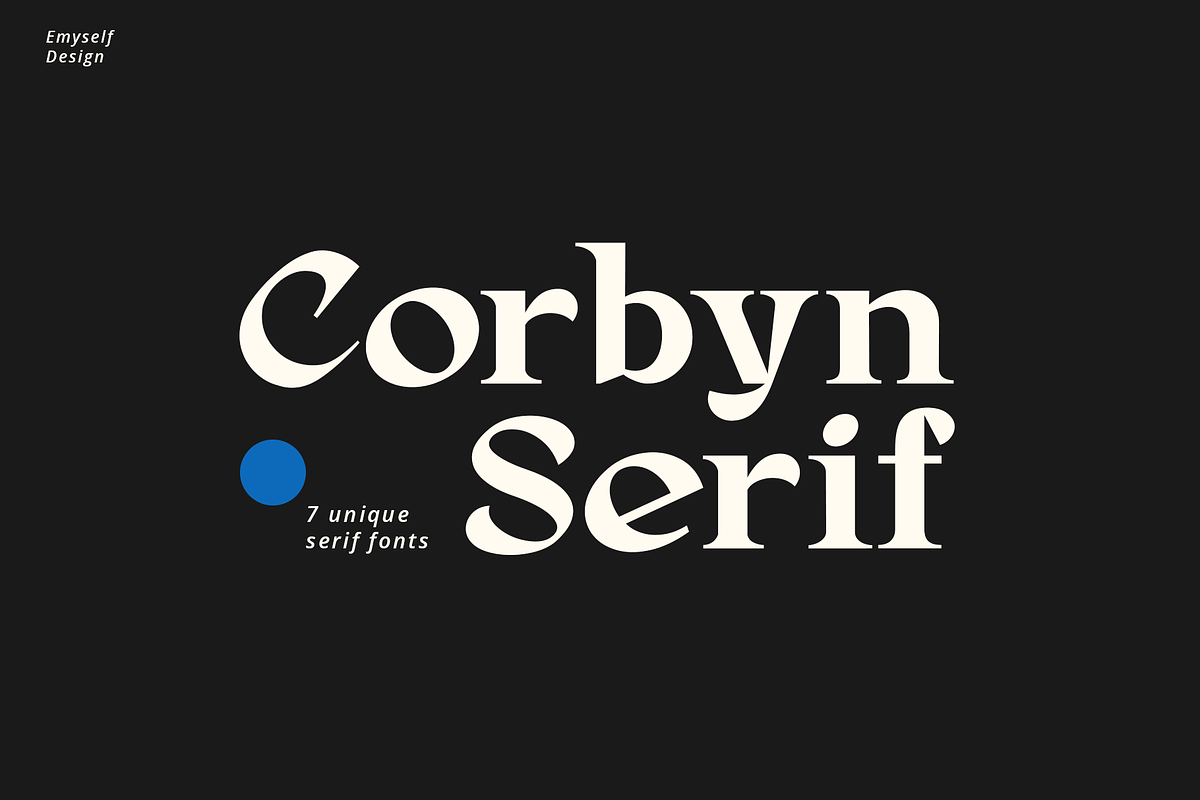
Corbyn Serif Font Free Download is a refined and professional typeface that blends traditional serif structure with a modern aesthetic. With its sharp edges, balanced proportions, and elegant curves, Corbyn is perfect for editorial layouts, corporate branding, book covers, websites, and sophisticated packaging.
Its timeless design ensures excellent readability while adding a touch of authority and elegance to your typography. Whether you’re crafting a high-end logo, formal invitation, or clean business presentation, Corbyn delivers clarity with a classic twist.
Designers love Corbyn for its versatility and upscale feel across both digital and print media. Want to bring strong character and polished style to your next project? Download Corbyn Serif Font Free Download and elevate your design with a serif that speaks professionalism and grace.